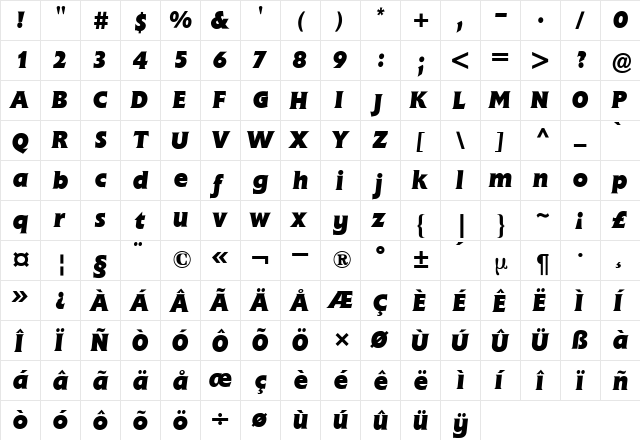
Flange BQ ItalicBold Font Preview
| Style | ItalicBold |
Design Context for Flange BQ Typeface
Flange BQ offers clean, dependable letterforms without strong stylistic allegiance, making it a practical choice for designers who need flexibility. The dynamic lean of this cut emphasises speed and emphasis in any layout. Its bold stroke weight gives it real presence on the page.